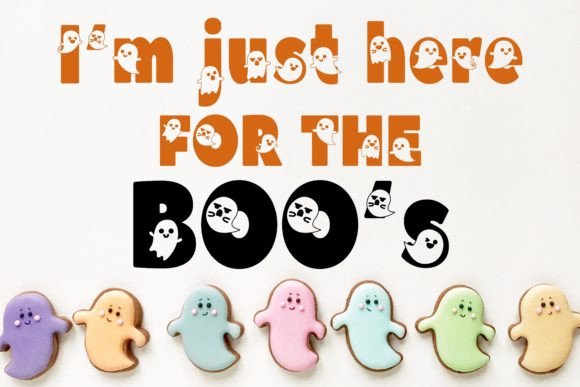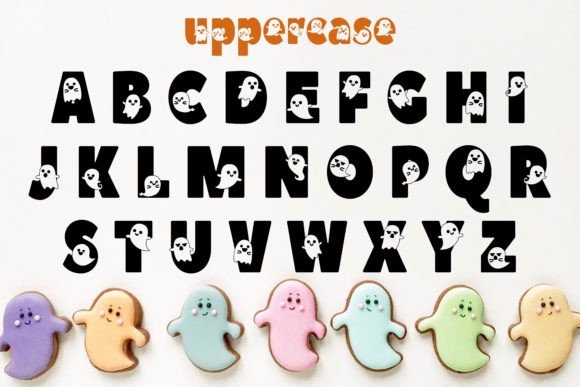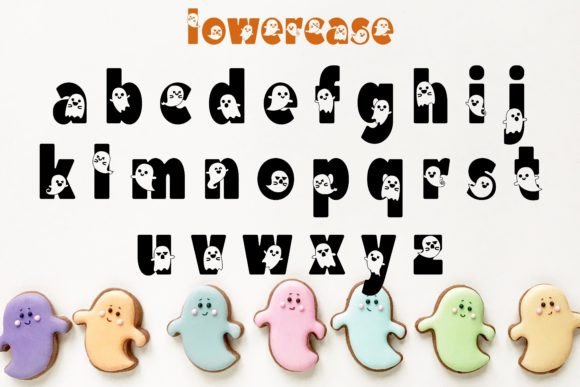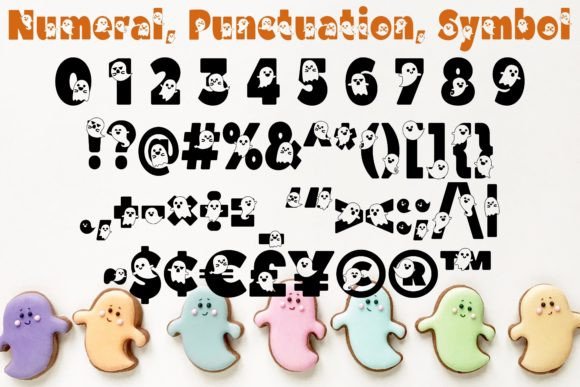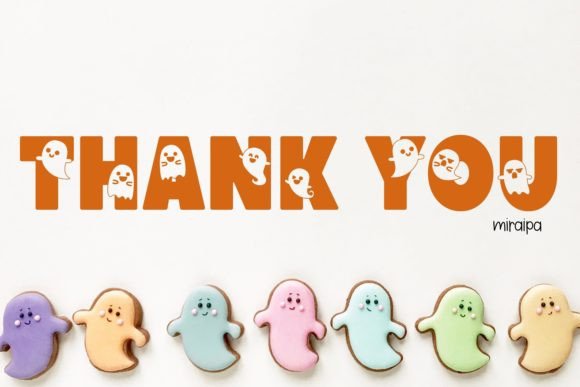
Cute Ghost Font: The Perfect Addition to Your Halloween Projects
Are you looking for a font that will add a touch of spooky whimsy to your Halloween projects? Look no further than the Cute Ghost Font. This fun and decorative font is perfect for designers and crafters who want to create eye-catching and mysterious designs. In this article, we’ll take a closer look at the Cute Ghost Font, its features, and how you can use it to make an impact on your Halloween projects.
What is Cute Ghost Font?
Cute Ghost Font is a digital font designed to resemble spooky, yet adorable ghostly characters. Its whimsical and mysterious design makes it perfect for Halloween-themed projects, such as party invitations, decorations, and social media graphics. The font is available for download and can be used on various design software, including Adobe Illustrator and Canva.
Features of Cute Ghost Font
The Cute Ghost Font has several features that make it a great addition to your Halloween projects:
- Unique Design: The font features adorable ghostly characters with a spooky twist, making it perfect for Halloween-themed designs.
- Whimsical and Mysterious: The font has a playful and enigmatic feel to it, adding a touch of magic to your designs.
- High-Quality: The font is designed with high-quality lines and curves, ensuring it looks great on various devices and printing materials.
- Easily Customizable: The font can be easily customized to fit your design needs, including changing the color, size, and style.
How to Use Cute Ghost Font
The Cute Ghost Font is easy to use and can be incorporated into various design projects. Here are some ideas on how to use the font:
- Halloween Party Invitations: Create spooky and fun party invitations that will set the tone for your Halloween celebration.
- Social Media Graphics: Use the font to create eye-catching social media graphics, such as Halloween-themed posts and stories.
- Decorations: Design Halloween decorations, such as banners, garlands, and signs, using the Cute Ghost Font.
- DIY Crafts: Use the font to create DIY crafts, such as Halloween cards, gift tags, and scrapbook pages.
Why Choose Cute Ghost Font?
There are several reasons why you should choose the Cute Ghost Font for your Halloween projects:
- Unique and Eye-Catching: The font is designed to grab attention and add a touch of whimsy to your designs.
- Versatile: The font can be used on various design projects, from party invitations to social media graphics.
- Easily Customizable: The font can be easily customized to fit your design needs.
- High-Quality: The font is designed with high-quality lines and curves, ensuring it looks great on various devices and printing materials.
Tips and Tricks for Using Cute Ghost Font
Here are some tips and tricks for using the Cute Ghost Font:
- Experiment with Colors: Try different color combinations to add a pop of color to your designs.
- Mix and Match: Mix and match the Cute Ghost Font with other fonts to create a unique and eye-catching design.
- Add Graphics: Add graphics, such as Halloween-themed illustrations, to enhance your design.
- Keep it Simple: Don’t overcomplicate your design. Keep it simple and let the Cute Ghost Font be the focal point.
| Font Name | Cute Ghost Font |
| Author | miraipa |
The Cute Ghost Font is a fun and spooky decorative font that’s perfect for Halloween projects. Its unique design, whimsical and mysterious feel, and high-quality lines and curves make it a great addition to any design project. With its versatility, customizability, and eye-catching design, the Cute Ghost Font is guaranteed to make an impact on your Halloween projects. So, download the Cute Ghost Font today and get creative with your Halloween designs!